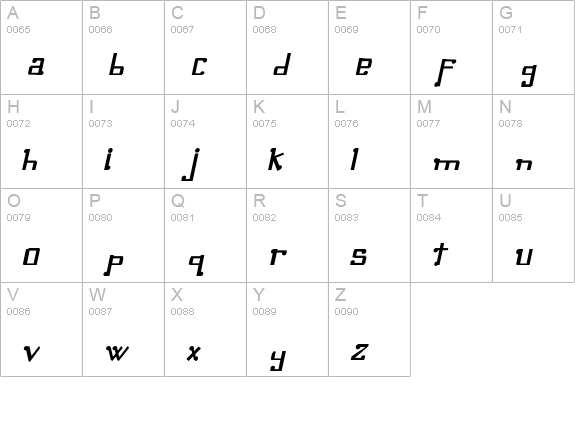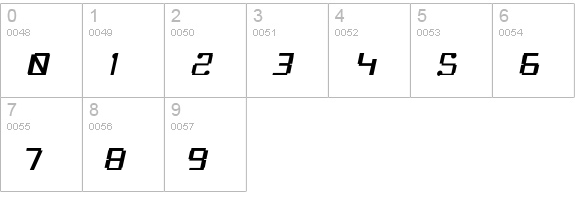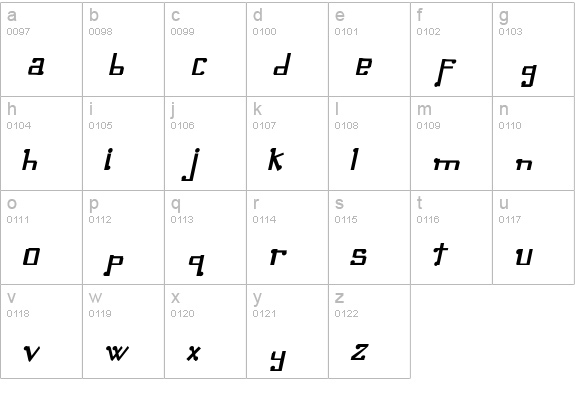
Omellons BoldItalic Font Details
Omellons BoldItalic is a stunning and versatile font that exudes elegance and sophistication. Its bold and italic design gives it a unique and modern look that is perfect for a wide range of projects, from branding to advertising to social media graphics. The striking contrast between thick and thin lines in this font adds a sense of drama and impact, making it stand out in any design. Whether you're looking to create a bold statement or add a touch of flair to your typography, Omellons BoldItalic is the perfect choice. Best of all, Omellons BoldItalic is available for free download at FontsMarket.com. This means you can easily access this beautiful font and use it in your projects without any cost. Don't miss out on the opportunity to elevate your designs with this stunning typeface – download Omellons BoldItalic today and let your creativity shine!